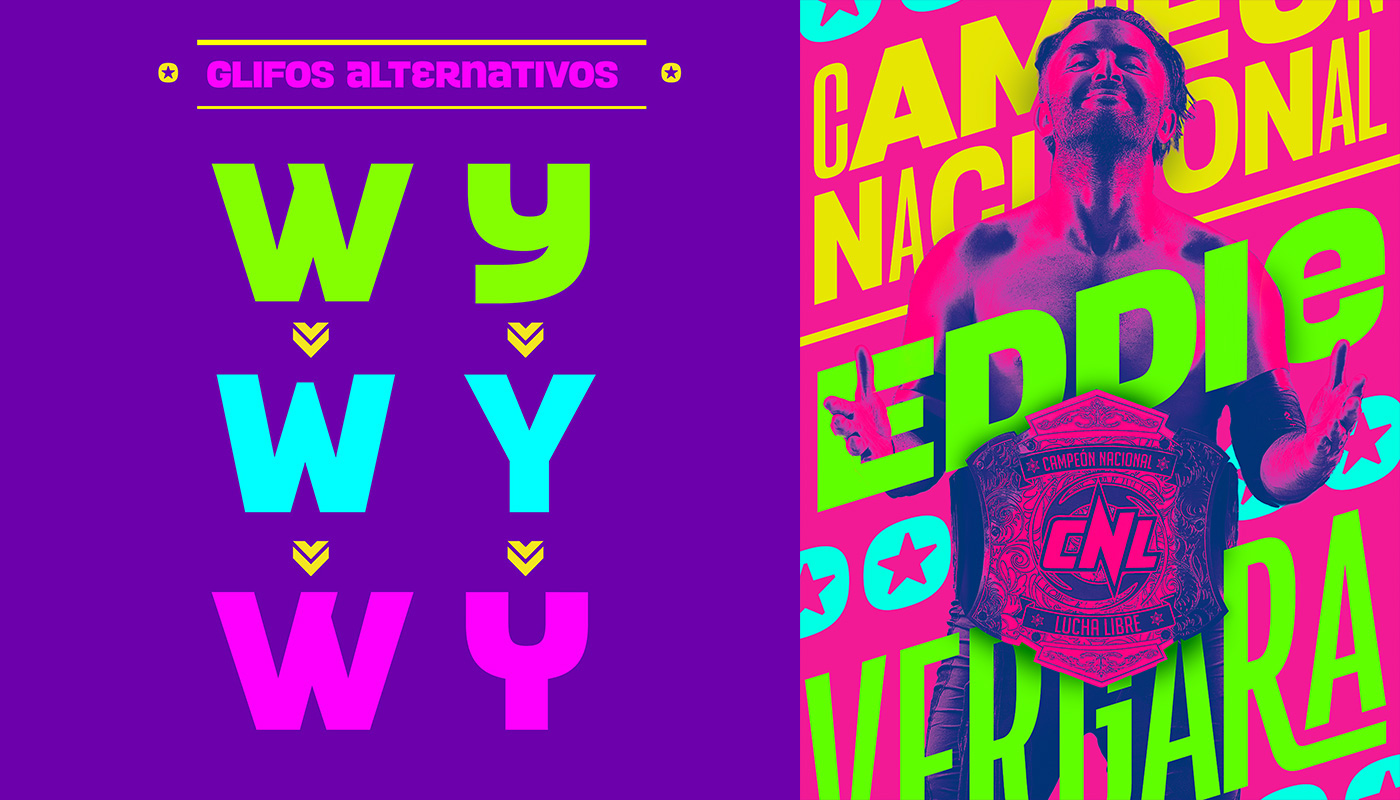
Versus Font
Versus Typeface Free Demo
Versus typeface designed by Marcelo Moya Ochoa. Versus is a unicase font family for short texts and titles, inspired by chilean wrestling. It wants to be the chilean version of the Knockout family, combining its strength with latin american typographic gestures. Its many alternate glyphs, ligatures, weights and widths give the designer versatility and room for fun. And, as chilean wrestling, Versus has personality, charisma and attitude, and it guaranteed fun for all family 🙂
Versus was developed during the Typography & Lettering Diploma from Universidad de Chile S1 2016, and the current beta version has 8 weights, from Ultra Light to Extra Black Extended.